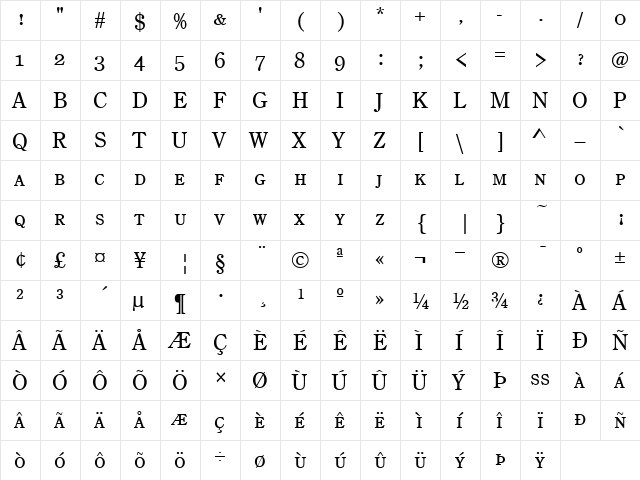
CenturyOldStyleSmc Regular
Design Context for CenturyOldStyleSmc Typeface
CenturyOldStyleSmc carries the refined structure of traditional serif typography, with bracketed terminals and considered proportions that communicate credibility and craft.
Pro Tip: Use CenturyOldStyleSmc for editorial body copy and considered headline work. Pair with a neutral sans for UI elements or captions to create a classic hierarchy.